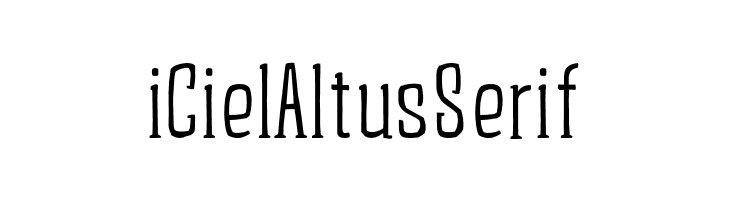
A classic serif font with elegant curves and a sophisticated appearance.
A hand-drawn, rustic font with tall, narrow characters and a distressed look.